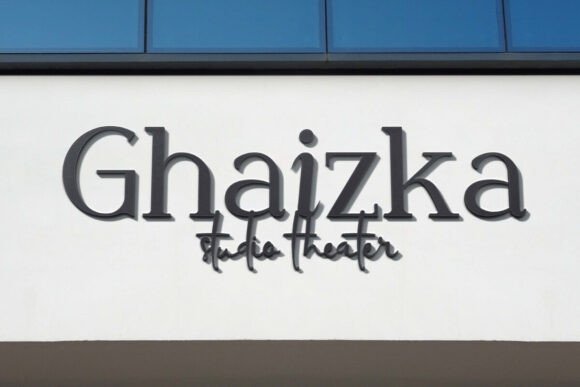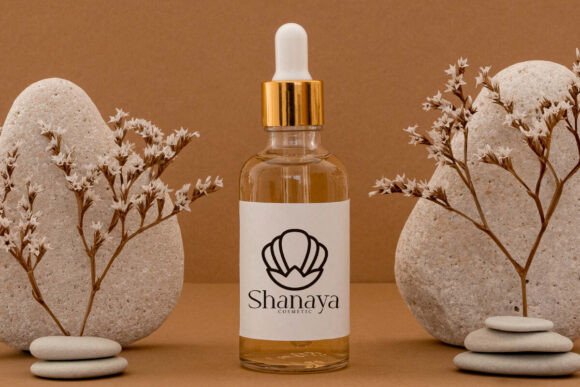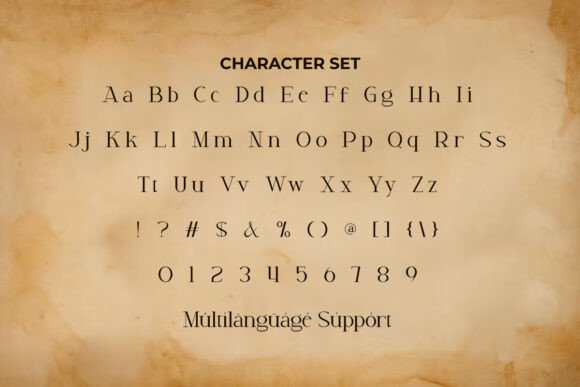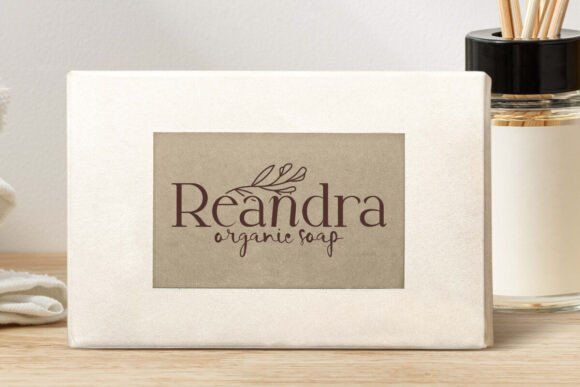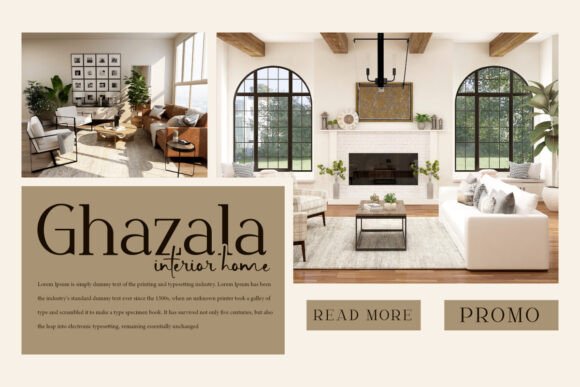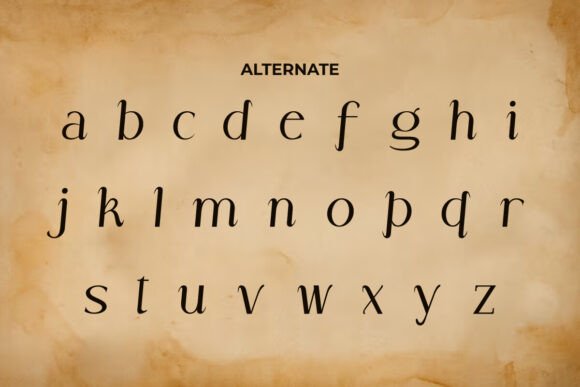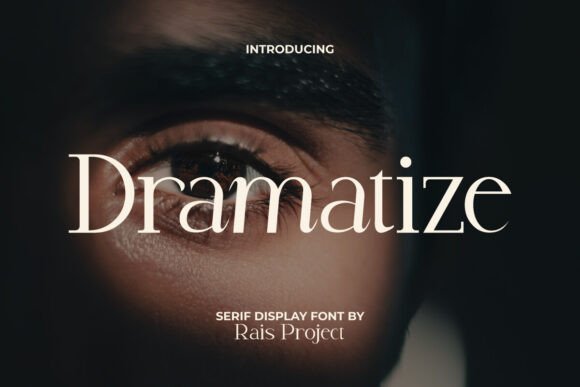
Dramatize Font: Elevate Your Designs with a Touch of Drama
In the world of design, fonts play a crucial role in conveying the message and tone of a project. If you’re looking for a font that can add a touch of drama and sophistication to your designs, look no further than the Dramatize Font. This beautiful, aesthetic modern serif display font is perfect for creating striking titles, headings, and text elements that demand attention.
The Power of Dramatize Font
Dramatize Font is designed to evoke the feeling of a dramatic film title, making it perfect for a wide range of design applications. Its elegant, serif lines and carefully crafted letterforms work together to create a sense of luxury and refinement. Whether you’re designing a brand image, custom design, invitation, label, menu, poster, product packaging, quote, signage, stationery, or web content, Dramatize Font is sure to make a lasting impression.
Key Features of Dramatize Font
• Modern Serif Design: Dramatize Font boasts a modern serif design that exudes elegance and sophistication.
• Display Font: This font is specifically designed for display purposes, making it perfect for headings, titles, and text elements that need to stand out.
• Attention-Grabbing: With its dramatic flair, Dramatize Font is guaranteed to grab attention and leave a lasting impression.
• Versatile: This font can be used in a wide range of design applications, from print to digital.
Design Applications for Dramatize Font
Dramatize Font is an incredibly versatile font that can be used in various design applications, including:
• Brand Image: Create a lasting impression with a dramatic brand image that showcases your company’s personality.
• Custom Design: Add a touch of elegance to your custom designs, such as brochures, flyers, and business cards.
• Invitations: Make your invitations stand out with a dramatic font that’s sure to impress.
• Labels and Packaging: Elevate your product packaging with a font that exudes luxury and sophistication.
• Posters and Signage: Create eye-catching posters and signage that demand attention.
• Stationery: Add a touch of drama to your stationery, including letterheads, envelopes, and notecards.
• Web Design: Use Dramatize Font to create striking headings and titles for your website.
Why Choose Dramatize Font?
With so many fonts available, why choose Dramatize Font? Here are just a few reasons:
• Unique and Memorable: Dramatize Font is a unique and memorable font that’s sure to leave a lasting impression.
• Elegant and Sophisticated: This font exudes elegance and sophistication, making it perfect for high-end designs.
• Easy to Read: Despite its dramatic flair, Dramatize Font is easy to read, making it perfect for body text and captions.
• Highly Versatile: This font can be used in a wide range of design applications, from print to digital.
In conclusion, Dramatize Font is a stunning, modern serif display font that’s perfect for designers and crafters looking to add a touch of drama to their designs. With its elegant lines, carefully crafted letterforms, and highly versatile design, this font is sure to elevate your designs and leave a lasting impression. Whether you’re designing a brand image, custom design, invitation, label, menu, poster, product packaging, quote, signage, stationery, or web content, Dramatize Font is the perfect choice.